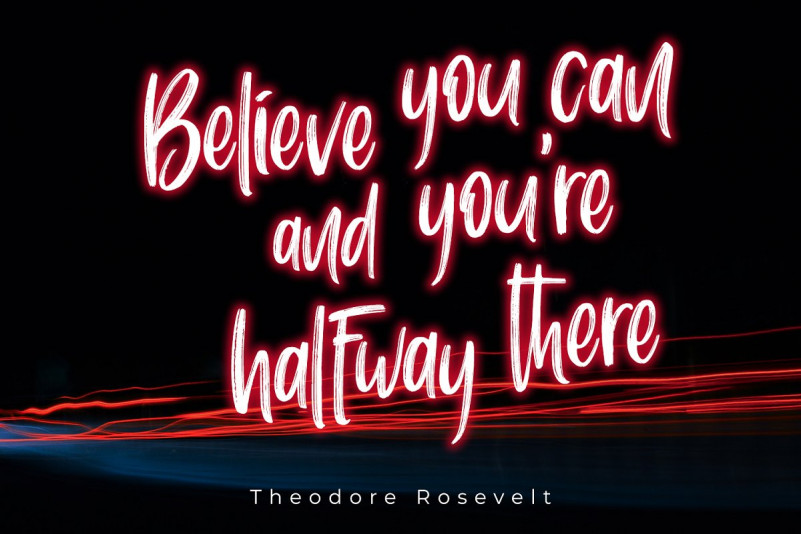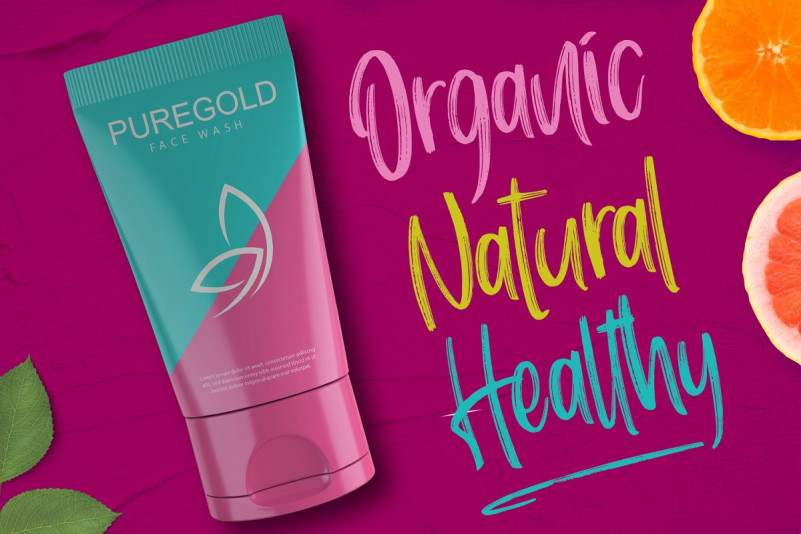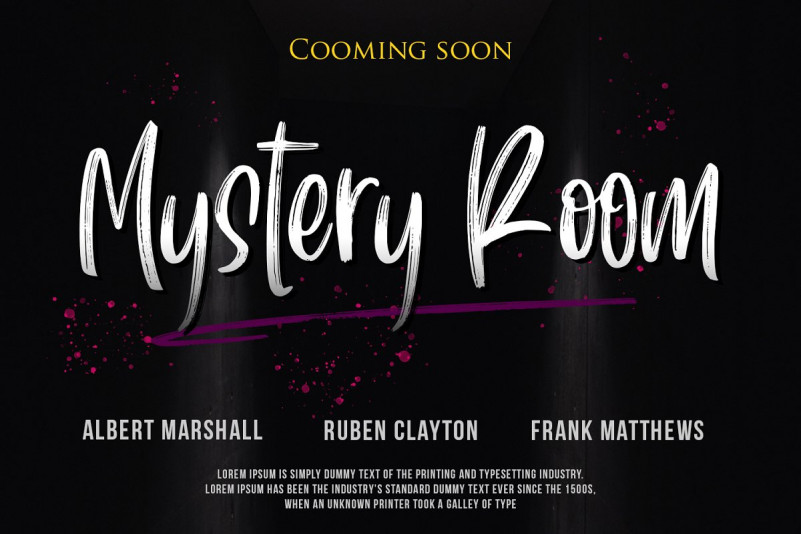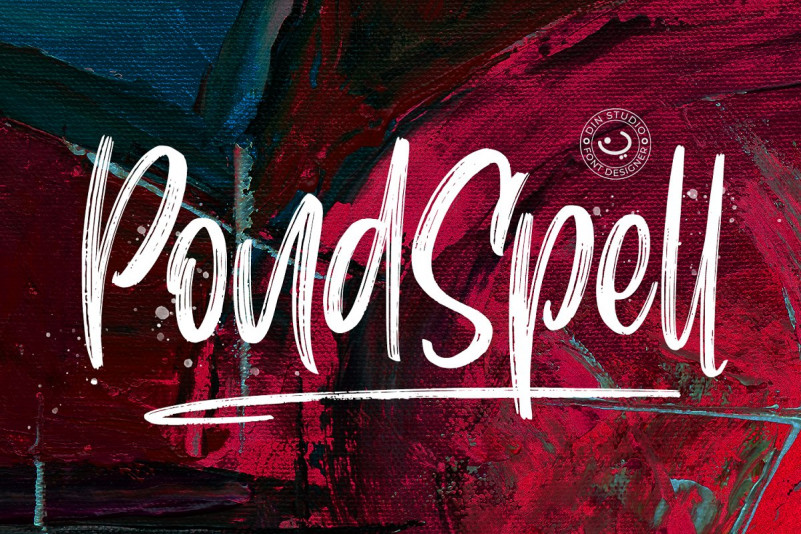
Pondspell Brush Font
Pondspell Brush Demo Font
Say hello to the Pondspell Font! This is a Handdrawn drybrush font, carefully crafted and full of imagination, rough textures that are typical of this font. It is designed and shared by Din Studio. Pondspell Brush Font Pondspellt is a brush font, Made with naturally brush. The texture from the brush font will make your design more beautiful and powerful. This font is suitable for any design like branding, quotes, book title and etc.